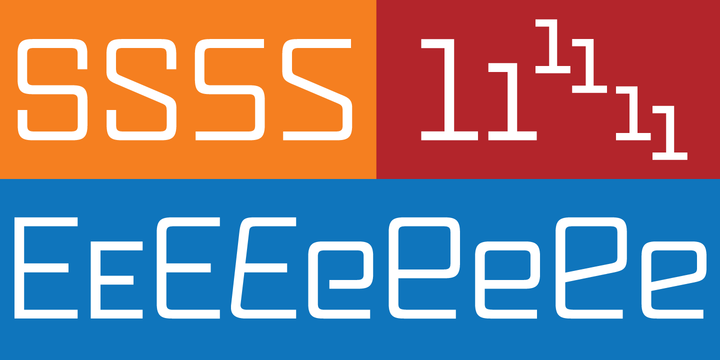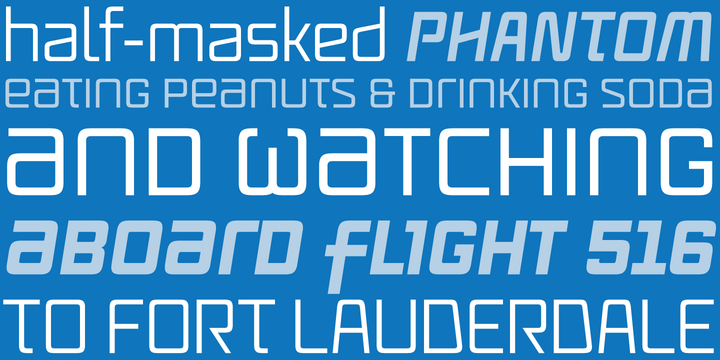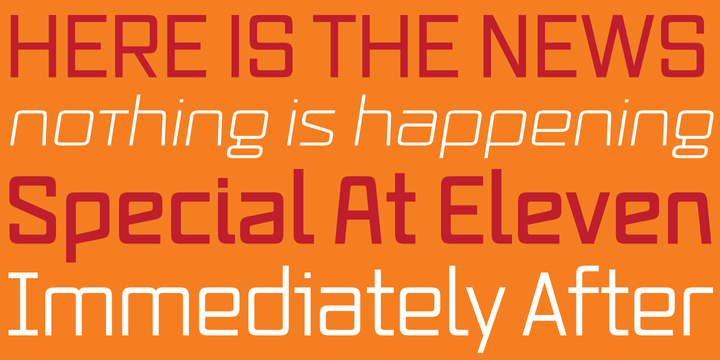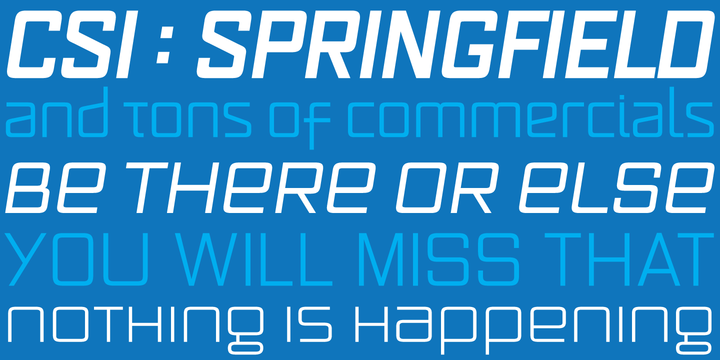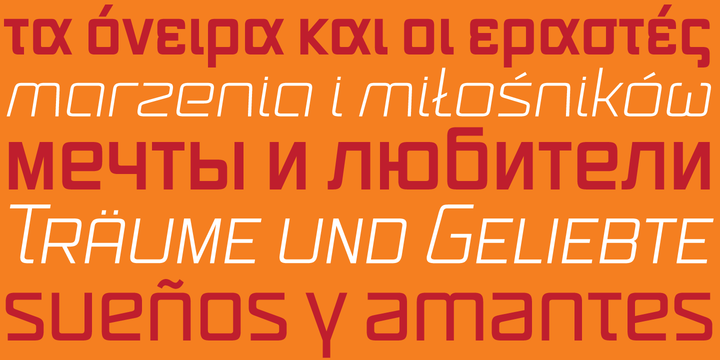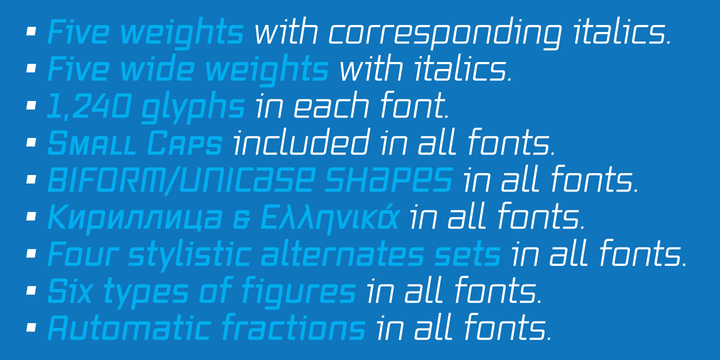
Vox font family
The original brief for Vox was a extensive monoline typeface that can be both precise and friendly, yet contain enough choice of seamlessly interchangeable variants for the user to be able to completely transform the personality of the typeface depending on the application.
Basically, a sans serif with applications that range from clean and transparent information relay to sleek and angular branding. When the first version of Vox was released in 2007, it became an instant hit with interface designers, product packagers, sports channels, transport engineers and electronics manufacturers. More…